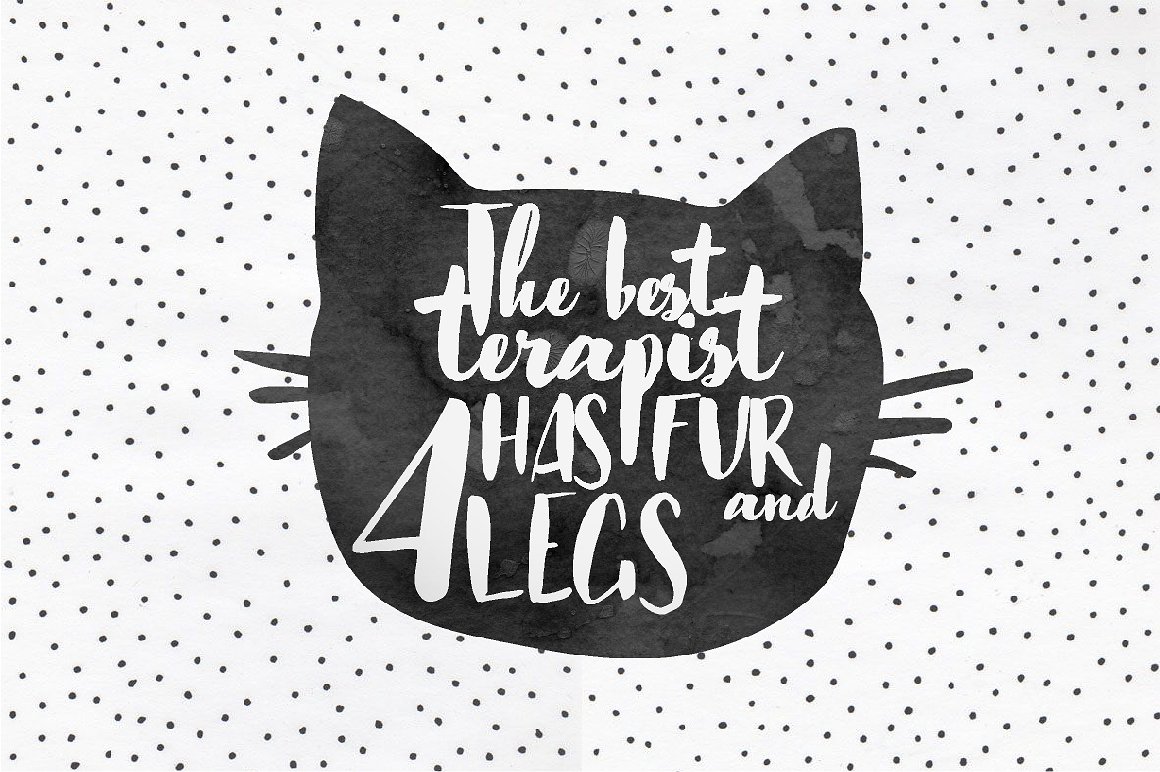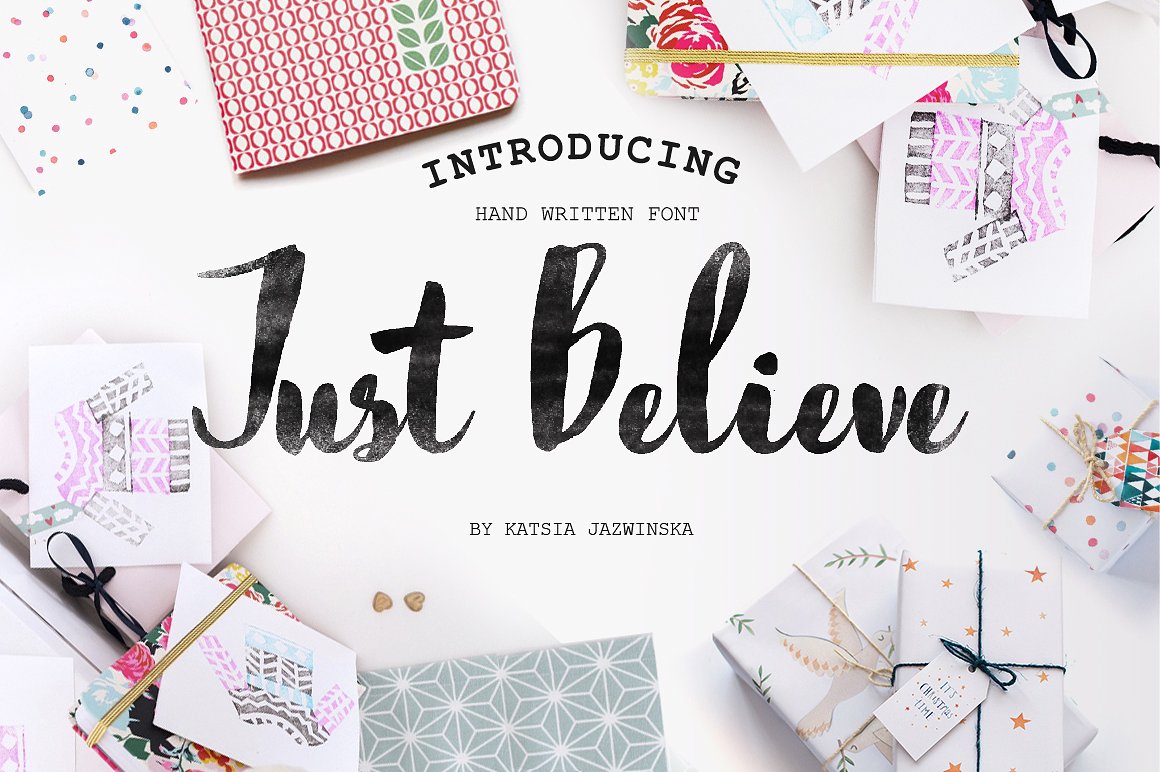
Just Believe Hand Written Font
“Just Believe” is a hand-made font, which comes with upper and lowercase characters, basic punctuation and numbers. You will get “Just Believe” font and “Just Believe Caps” in .ttf and .otf file formats.